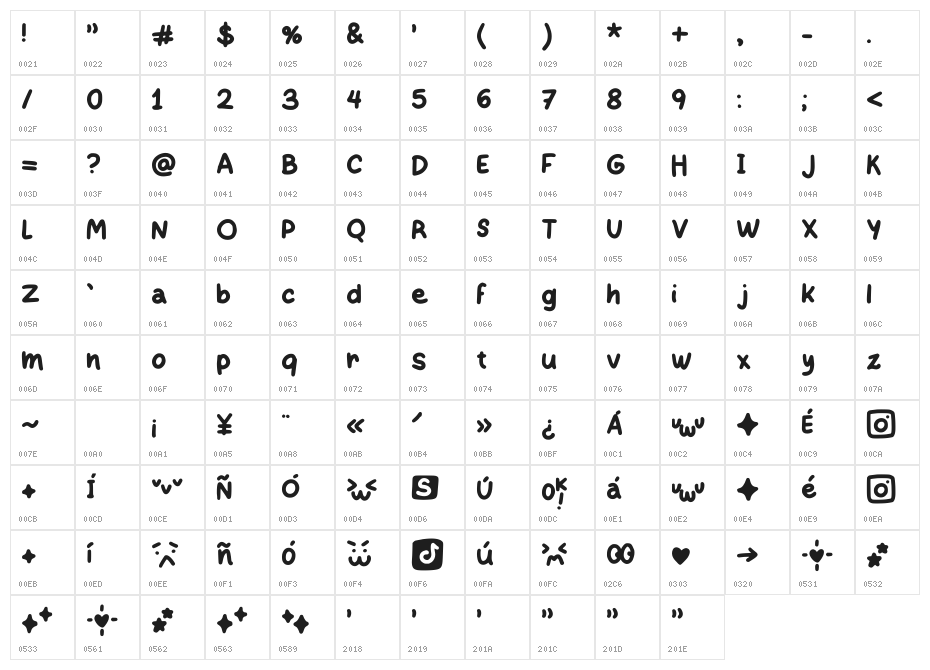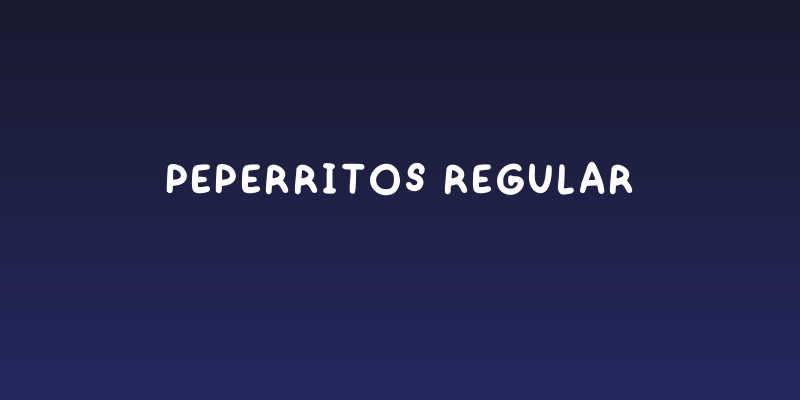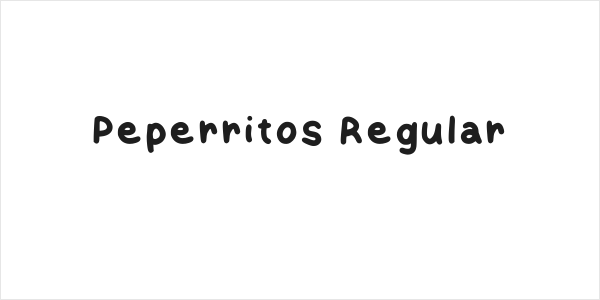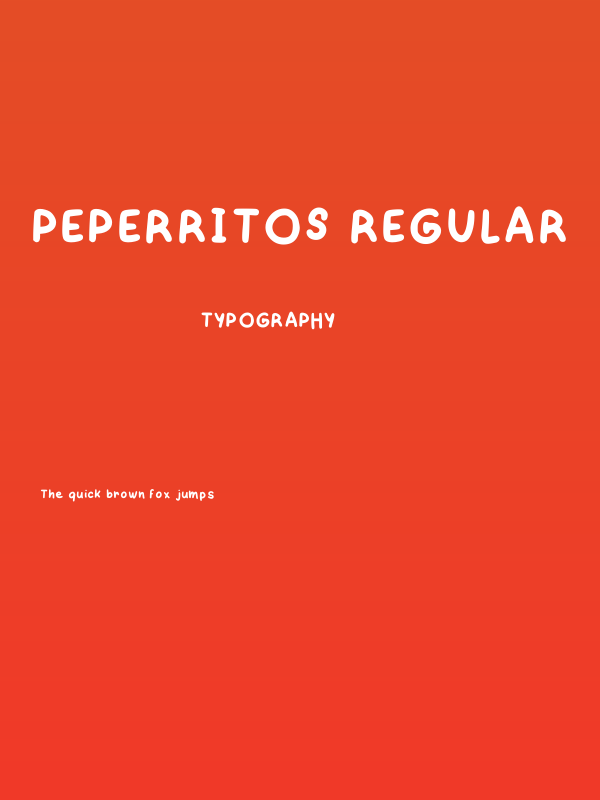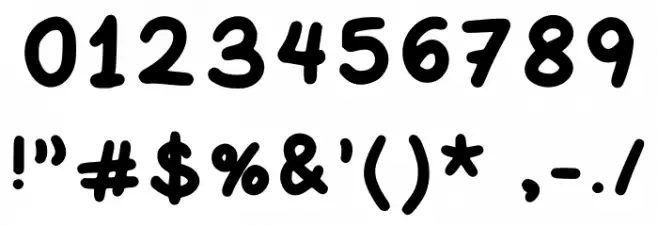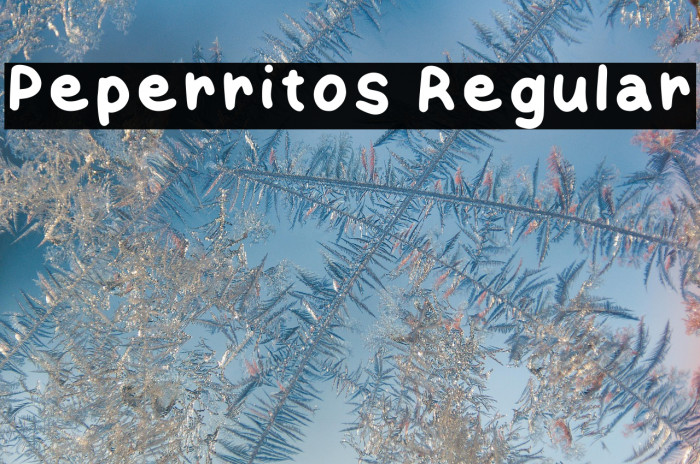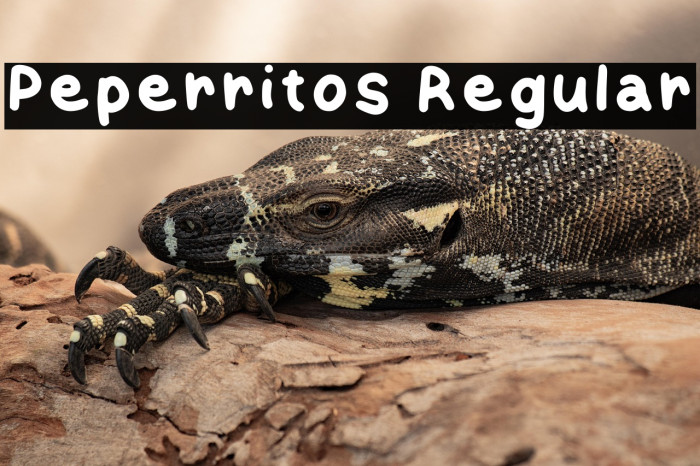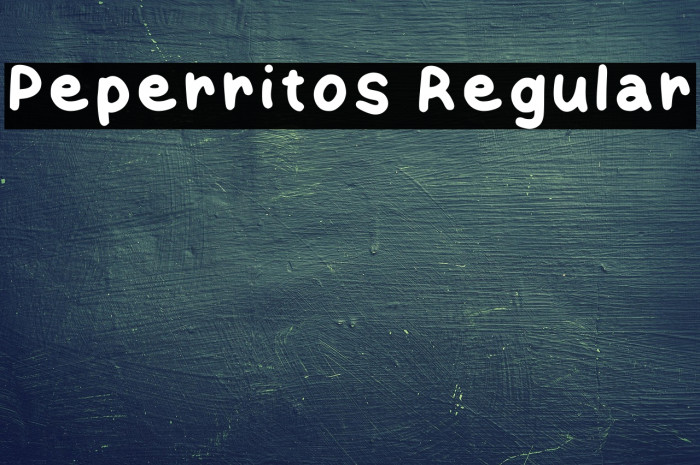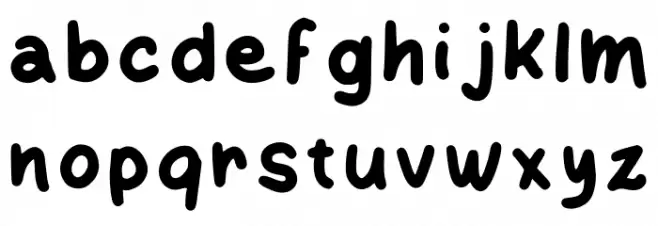
Peperritos Regular Font
| Style général | Playful |
| Cas d'utilisation | Headlines, Logos, Informal Text |
| Projets proposés | Ideal for children's books, playful branding, greeting cards, and casual invitations. |